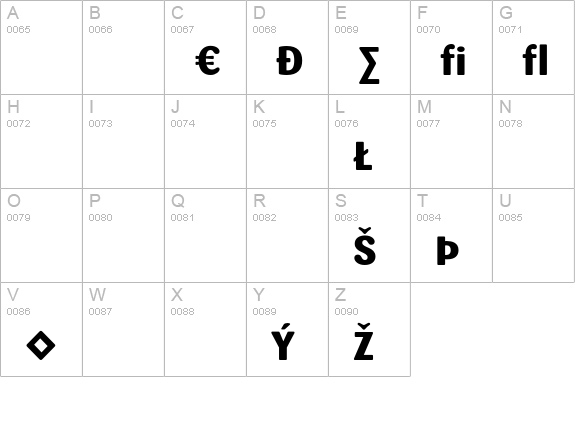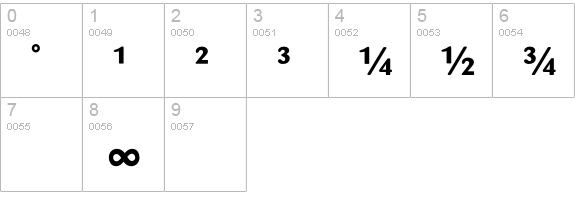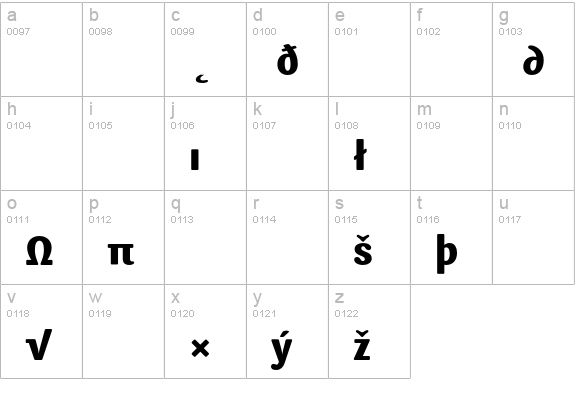
Sari-ExtraBoldExp Font Details
Introducing Sari-ExtraBoldExp, a captivating and bold font that is sure to make a statement. This remarkable typeface exudes confidence and strength with its thick and powerful letterforms. Its commanding presence on the page demands attention and leaves a lasting impression. Sari-ExtraBoldExp is not only visually striking, but it also possesses a touch of elegance and sophistication. The carefully designed curves and sharp angles create a harmonious balance, making it suitable for a wide range of design projects. From eye-catching headlines to impactful logos, this font will elevate your work to new heights. What sets Sari-ExtraBoldExp apart is its versatility. Whether you're designing a modern website, crafting a sleek branding campaign, or creating attention-grabbing posters, this font will deliver exceptional results. Its clean and legible appearance ensures readability across various mediums, making it an ideal choice for both print and digital applications. And the best part? Sari-ExtraBoldExp is available free of charge at FontsMarket.com. Yes, you read that right – this remarkable font can be freely downloaded and utilized in your creative endeavors. With just a few clicks, you can access this powerful tool and unlock its full potential. So why wait? Embrace the boldness and elegance of Sari-ExtraBoldExp in your next design project. With its stunning aesthetics and free availability, there's no reason not to add this font to your collection. Download Sari-ExtraBoldExp today and let your creativity soar to new heights.